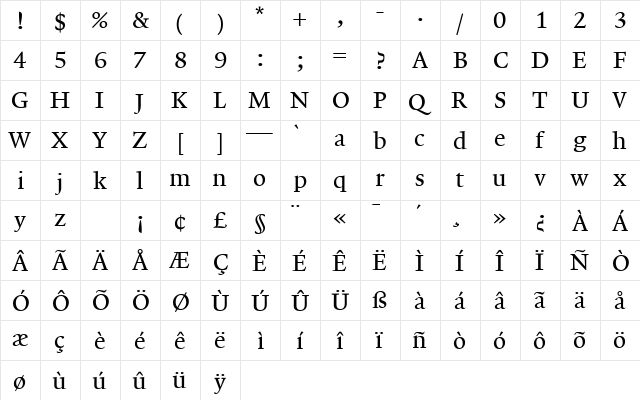
Lexicon No1 Roman A Tab
Design Context for Lexicon No1 Typeface
Lexicon No1 takes a measured approach to typography — its balanced proportions and neutral character make it a reliable workhorse for both digital and print work.